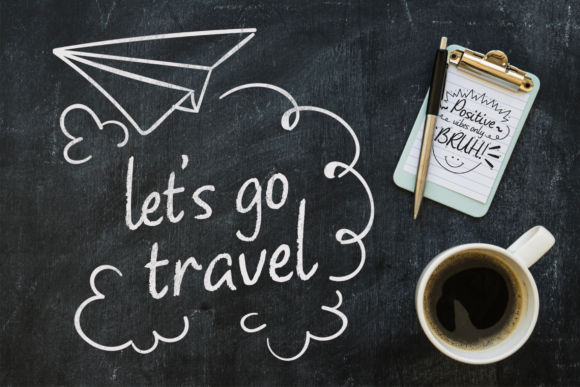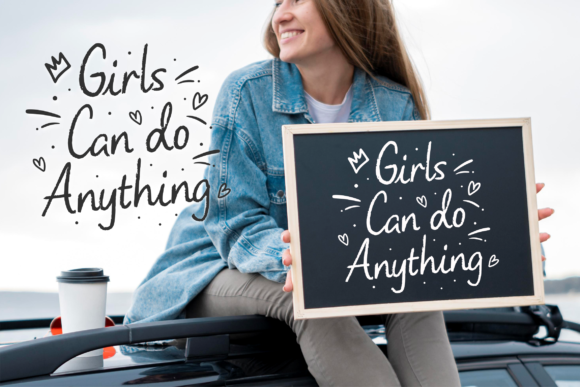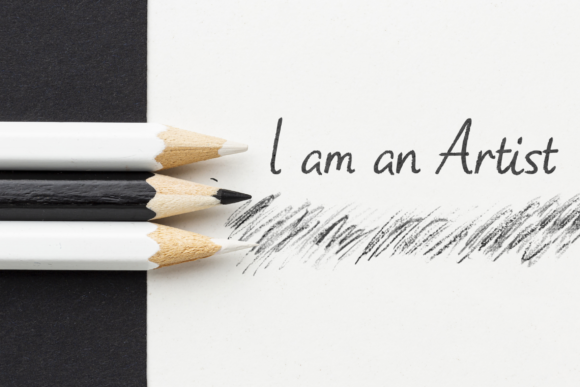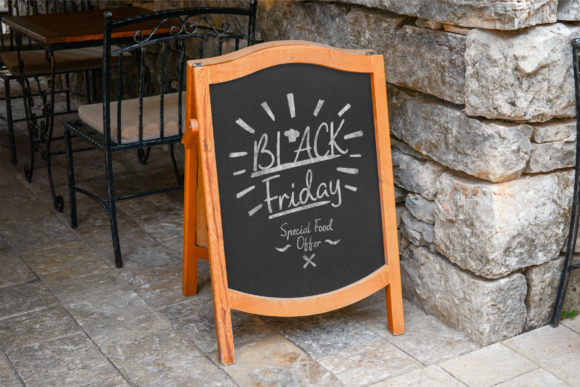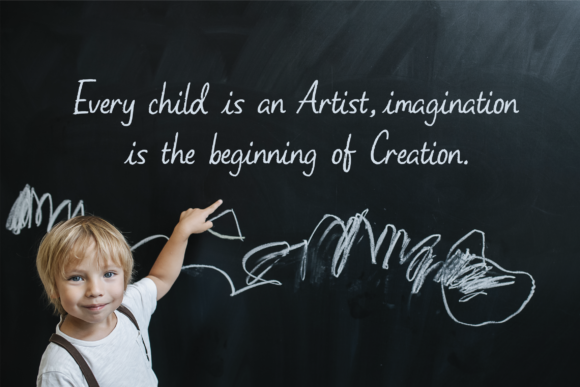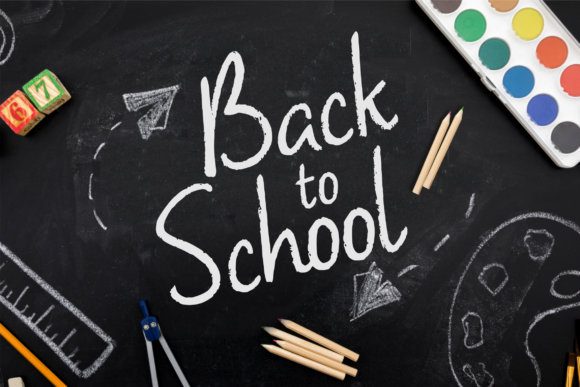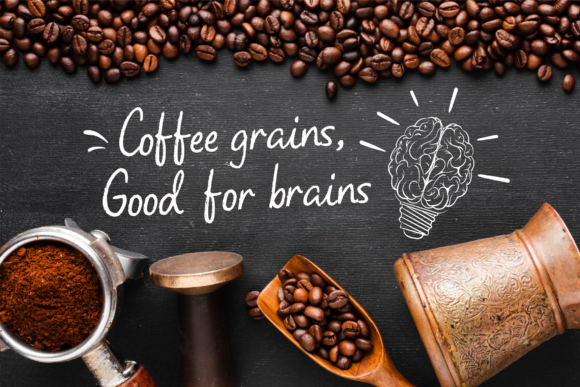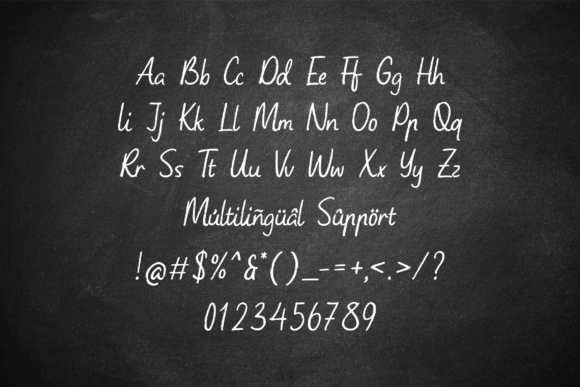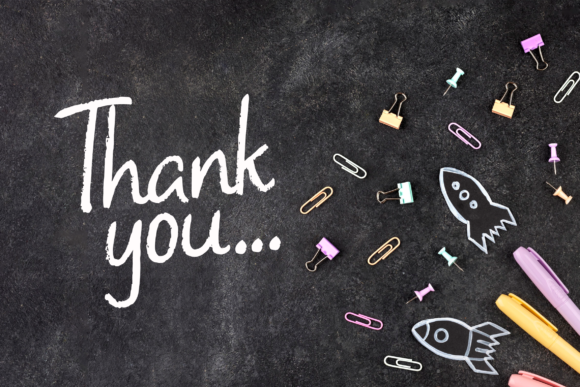
Onlychalk Font
Onlychalk is a simple and adaptable handwritten font, masterfully designed to become a true favorite. It maintains its classy calligraphic influences while feeling contemporary and fresh. Fall in love with it and bring your projects to the highest levels!